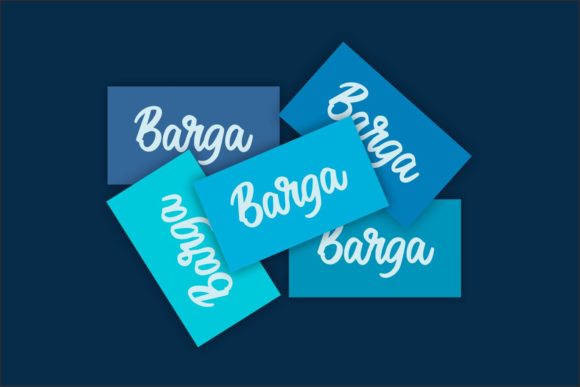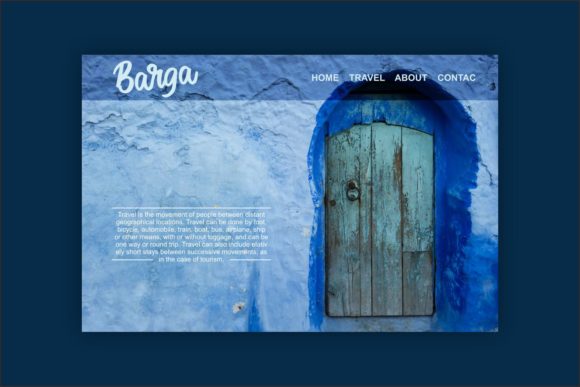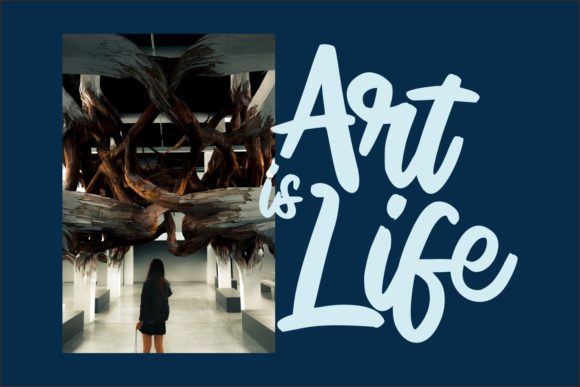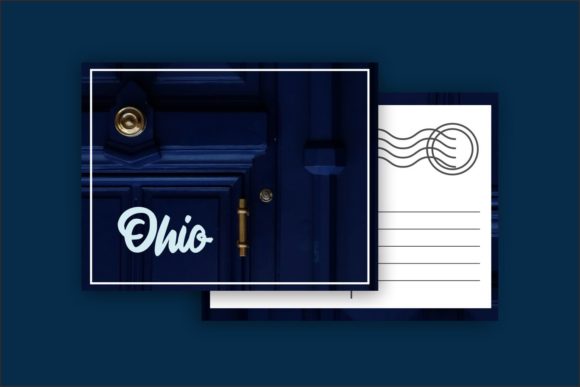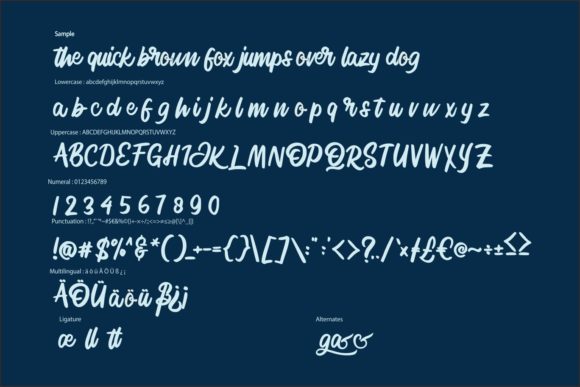
HomeScript FontsSignlia Font Script Fonts Signlia Font FacebookXPinterestWhatsApp Signlia Font Poster 2 Signlia Font Poster 3 Signlia Font Poster 4 Signlia Font Poster 5 Signlia Font Poster 6 About Signlia Font Signlia is a modern script font with a calligraphy style. Get inspired by its unique charm! DOWNLOAD ON CREATIVE FABRICAThis font is sold and delivered by Creative Fabrica. Font Canyon may earn a commission if you buy through this link. People also explored Botana Font Gellisa Script Sharley Font Elizable Font Great Month Font Brandford Font Megandia Font Hercules Font Amelia Script – Draft Version Font 313 0 TagsSignlia Font Previous articleKalled FontNext articleKwacyland Font LEAVE A REPLY Cancel reply Comment: Please enter your comment! Name:* Please enter your name here Email:* You have entered an incorrect email address! Please enter your email address here Website: Save my name, email, and website in this browser for the next time I comment. Personal Use Free Old Linoleum Personal Use Free Read more about this font DoooLA Personal Use Free Read more about this font Lemon Milk Font Personal Use Free Read more about this font Beloved Script Personal Use Free Read more about this font BLOG Free Fonts Risk: Why Free Fonts Can Be Dangerous for Designers Free Fonts Risk: Why Free Fonts Can Be Dangerous for Designers Using free fonts is a common practice in web and graphic design. However, the... Best Fonts for T-Shirt Design – Top 2025 Picks Transform Your Website: Elevate Your Typography with 7 Best Web Font Generators Exploring Font Trends